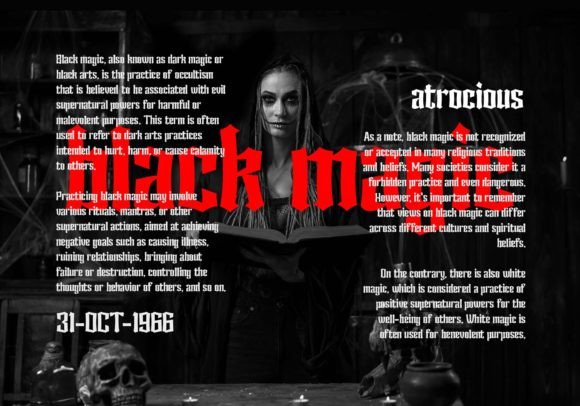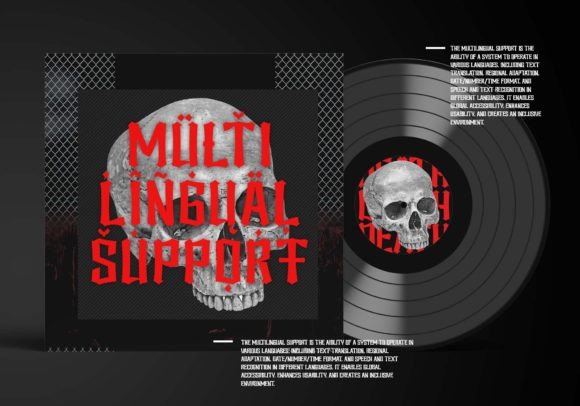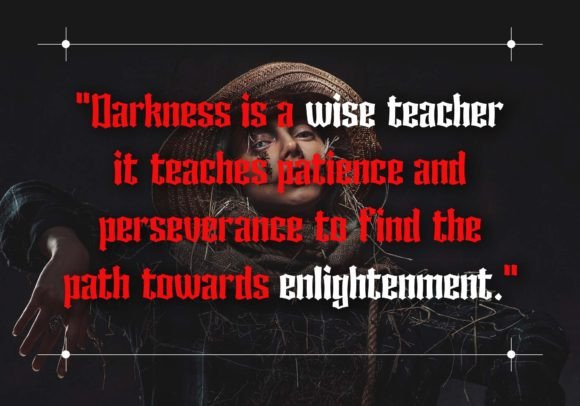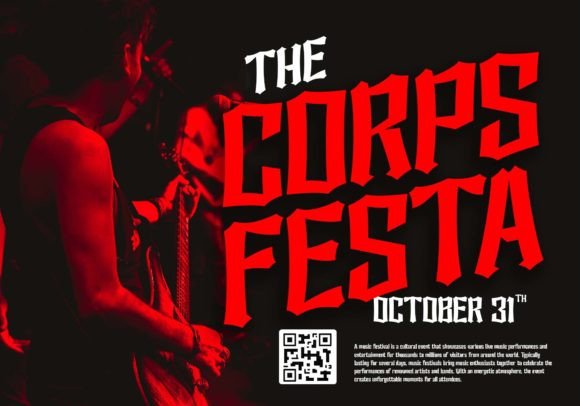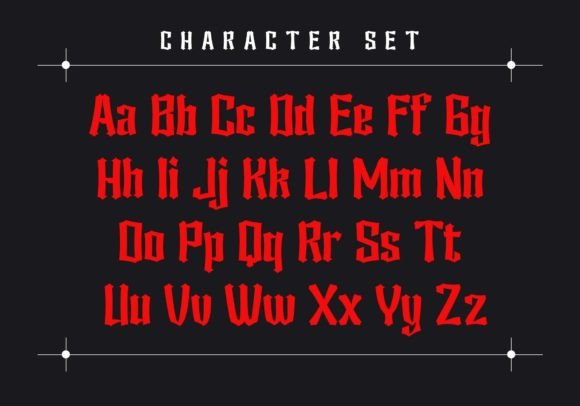
Unleash the Eerie Charm of Atrocious Font: A Display Typeface for the Bold
In the realm of typography, few fonts manage to evoke a sense of mystery and intrigue as effectively as Atrocious – Display Typeface. This unique Gothic-inspired font is designed to create an eerie atmosphere, making it an exceptional choice for designers seeking to craft impressive visuals that leave a lasting impression. With its distinctive charm and unparalleled artistic flair, Atrocious Font is poised to revolutionize the world of graphic design, cinema, and publishing.
The Distinctive Features of Atrocious Font
Atrocious Font boasts a stunning design that is both captivating and unsettling. Its Gothic touch is unmistakable, evoking a sense of mystery and foreboding that is perfect for horror-themed designs, cinematic titles, and book covers. The font’s unique aesthetic is characterized by its intricate details, sharp lines, and bold strokes, which combine to create a truly unforgettable visual experience.
Unparalleled Artistic Charm
What sets Atrocious Font apart from other display typefaces is its ability to evoke a remarkably strong aura of mystery. This font is not just a means of communication; it’s an artistic statement that demands attention. Its stunning design and distinctive Gothic touch make it an outstanding choice for designers seeking to create visuals that are both haunting and beautiful. Whether you’re working on a horror-themed project, a cinematic title sequence, or a book cover, Atrocious Font is sure to leave a lasting impression.
OpenType Features and Language Support
Atrocious Font offers a range of OpenType features that provide limitless flexibility in self-expression. With support for multiple languages, designers can experiment with different typographic styles, creating unique and captivating visuals that transcend cultural boundaries. This font is perfect for designers seeking to push the boundaries of creativity, exploring new ways to express their artistic vision.
The versatility of Atrocious Font makes it an excellent choice for a wide range of design applications. Here are just a few examples:
- Book Titles: Create captivating book covers that grab readers’ attention with Atrocious Font’s distinctive Gothic charm.
- Cinema: Add a special touch to your cinematic title sequences, making your film or video project stand out from the crowd.
- Graphic Designs: Infuse your graphic designs with a unique element, creating visuals that are both haunting and unforgettable.
Beyond Horror Themes
While Atrocious Font is perfectly suited for horror-themed designs, its versatility extends far beyond this genre. Designers can use this font to create a spine-chilling ambiance in a variety of contexts, from Gothic-inspired art to experimental typography. Whether you’re seeking to create a bold statement or a subtle hint of eeriness, Atrocious Font provides the perfect tool for crafting unforgettable visuals.
Atrocious – Display Typeface is a game-changer in the world of typography, offering designers an unparalleled artistic charm and flexibility in self-expression. With its distinctive Gothic touch, stunning design, and extensive language support, this font is poised to become a go-to choice for designers seeking to create impressive visuals that leave a lasting impression. Whether you’re a professional designer, a crafty DIY enthusiast, or simply someone who appreciates the art of typography, Atrocious Font is an exceptional addition to your creative toolkit.